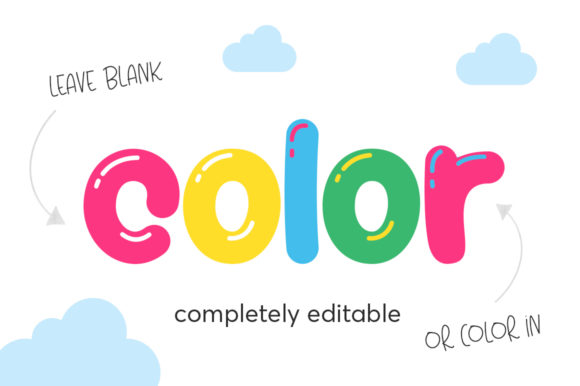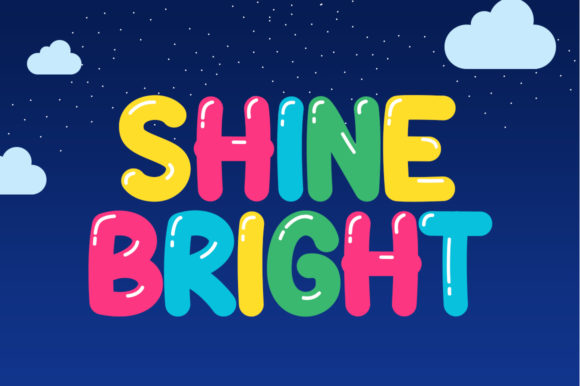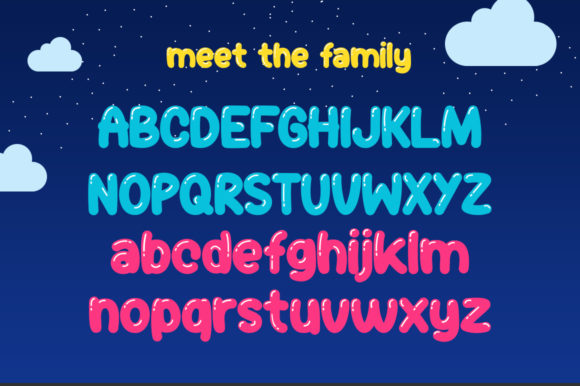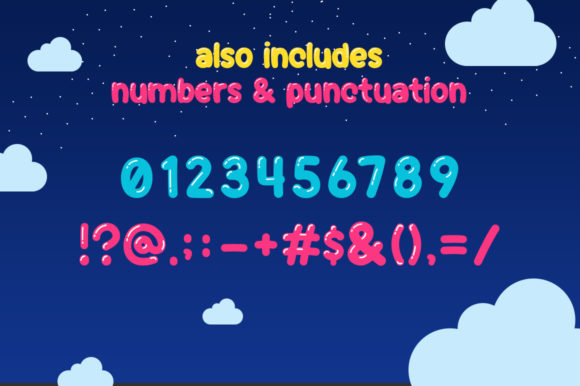
Introduction to Jellybelly Font
Jellybelly is a jiggly, wiggly and fabulous font from salt and pepper designs.
Perfectly imperfect and rounded with love, this cute new favorite will be a wonderful addition to your collection .